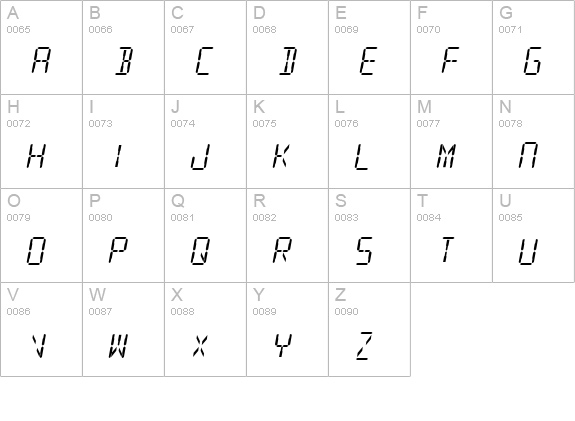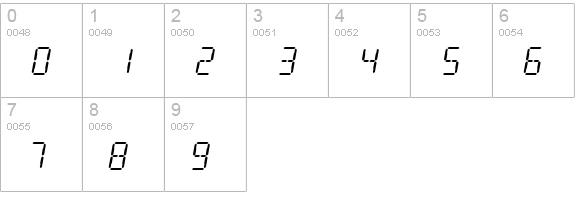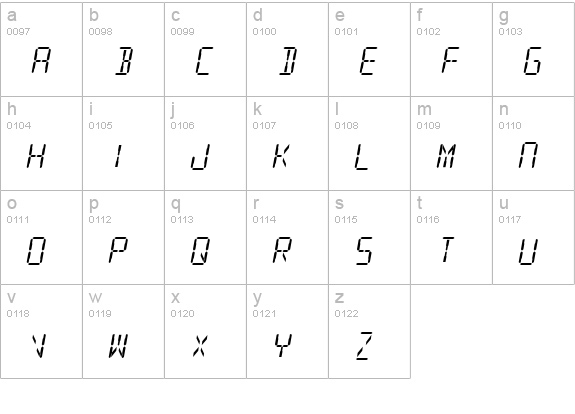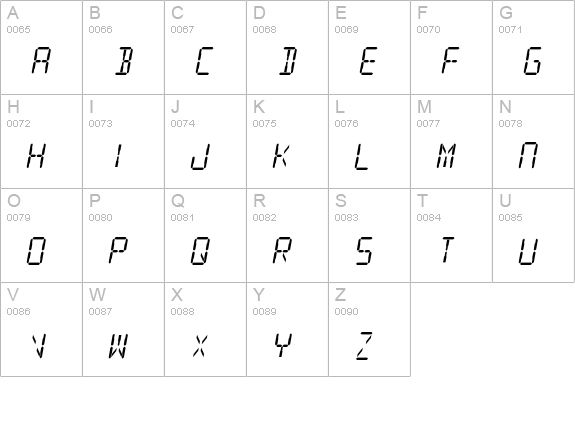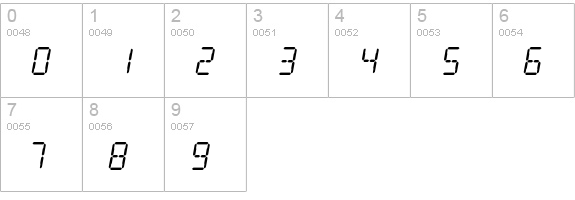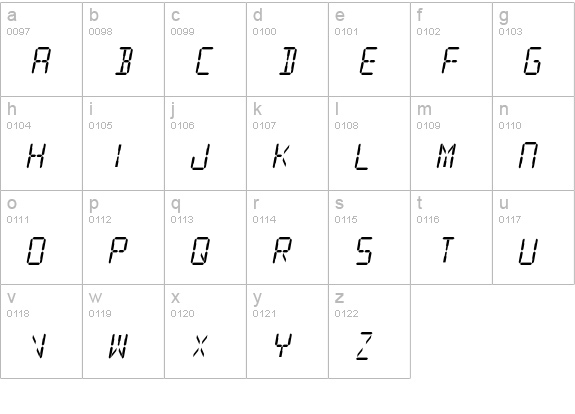
Digital Readout font is a modern and futuristic typeface that embodies the essence of digital technology. Its sleek and dynamic design makes it perfect for a wide range of projects, from tech websites to digital signage. The font features sharp edges and clean lines, giving it a highly legible and professional look. What makes Digital Readout font even more appealing is that it is completely free to download. You can easily access this versatile font at FontsMarket.com, where you can enhance your design projects with this cutting-edge typeface. Don't miss out on the opportunity to add a touch of modernity and sophistication to your work with Digital Readout font.